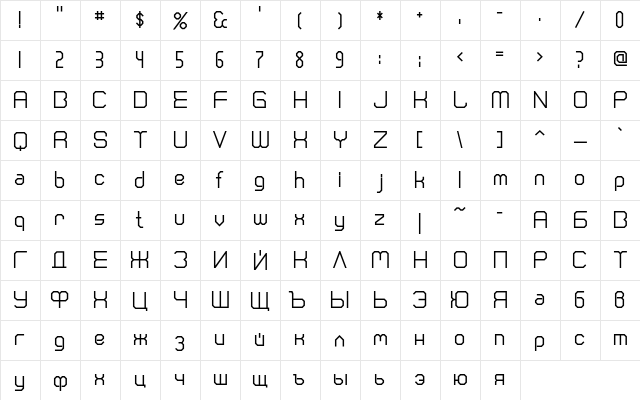
DS CranberryC Regular
Design Context for DS CranberryC Typeface
DS CranberryC offers clean, dependable letterforms without strong stylistic allegiance, making it a practical choice for designers who need flexibility.
Pro Tip: Pair DS CranberryC with a font of contrasting weight or personality to build a more expressive typographic hierarchy.